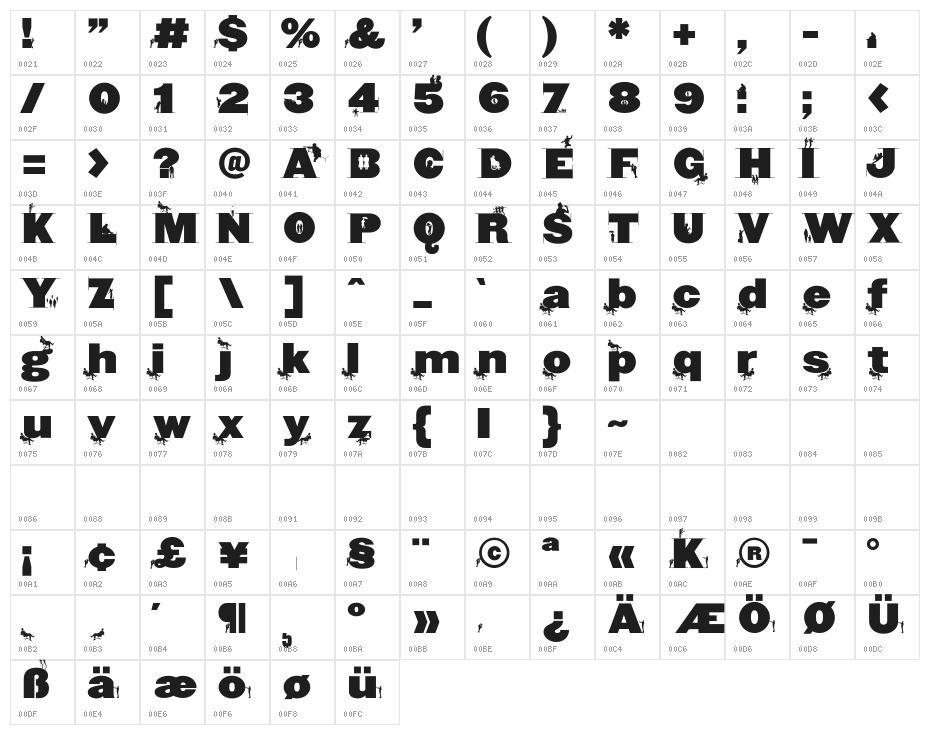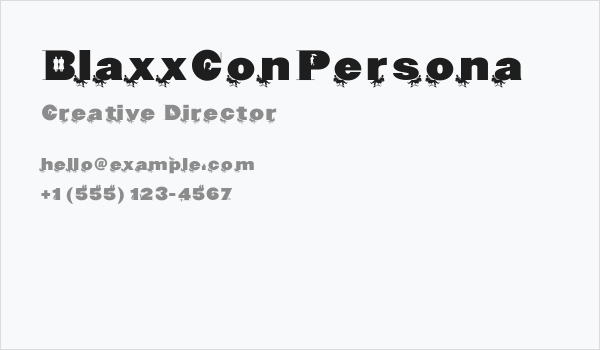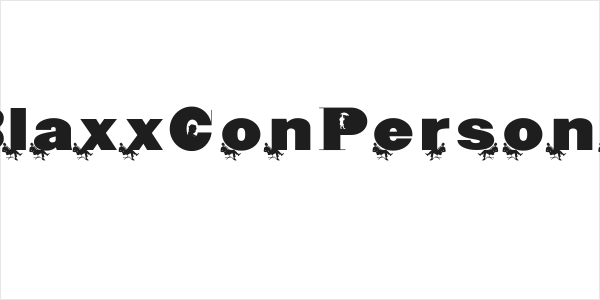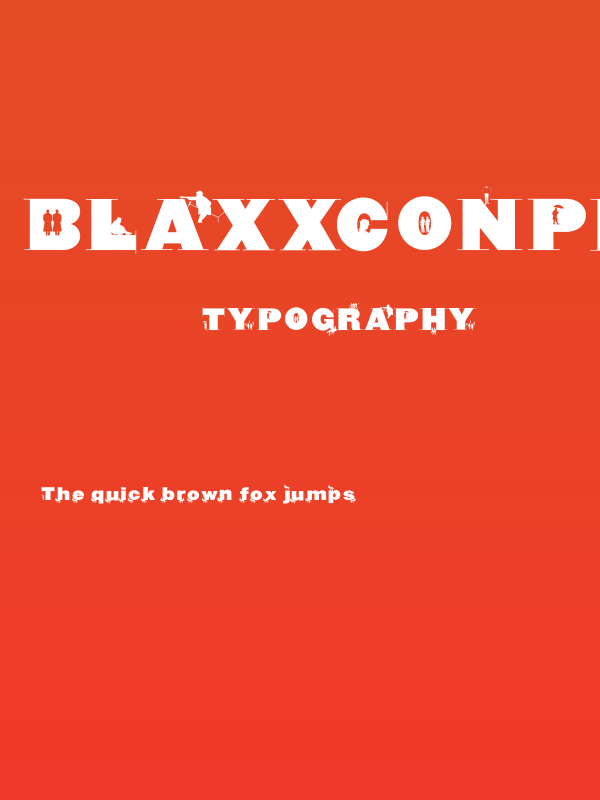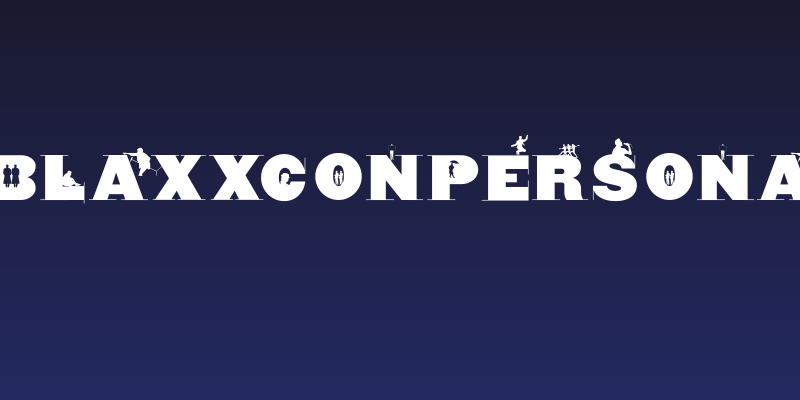
BlaxxConPersona Font
BlaxxConPersona Description
This font is a bold and playful display typeface that incorporates small silhouette figures interacting with the letters. Each character is designed with a strong, blocky appearance, making it highly visible and impactful. The figures add a whimsical and creative element, making the font suitable for projects that require a fun and engaging aesthetic. The uppercase and lowercase letters maintain a consistent style, with the figures adding unique variations to each character. The numbers and special characters follow the same design principles, ensuring a cohesive look across all glyphs.
Overall StylePlayful, Creative
Proposed ProjectsIdeal for posters, children's books, creative branding, and event invitations.